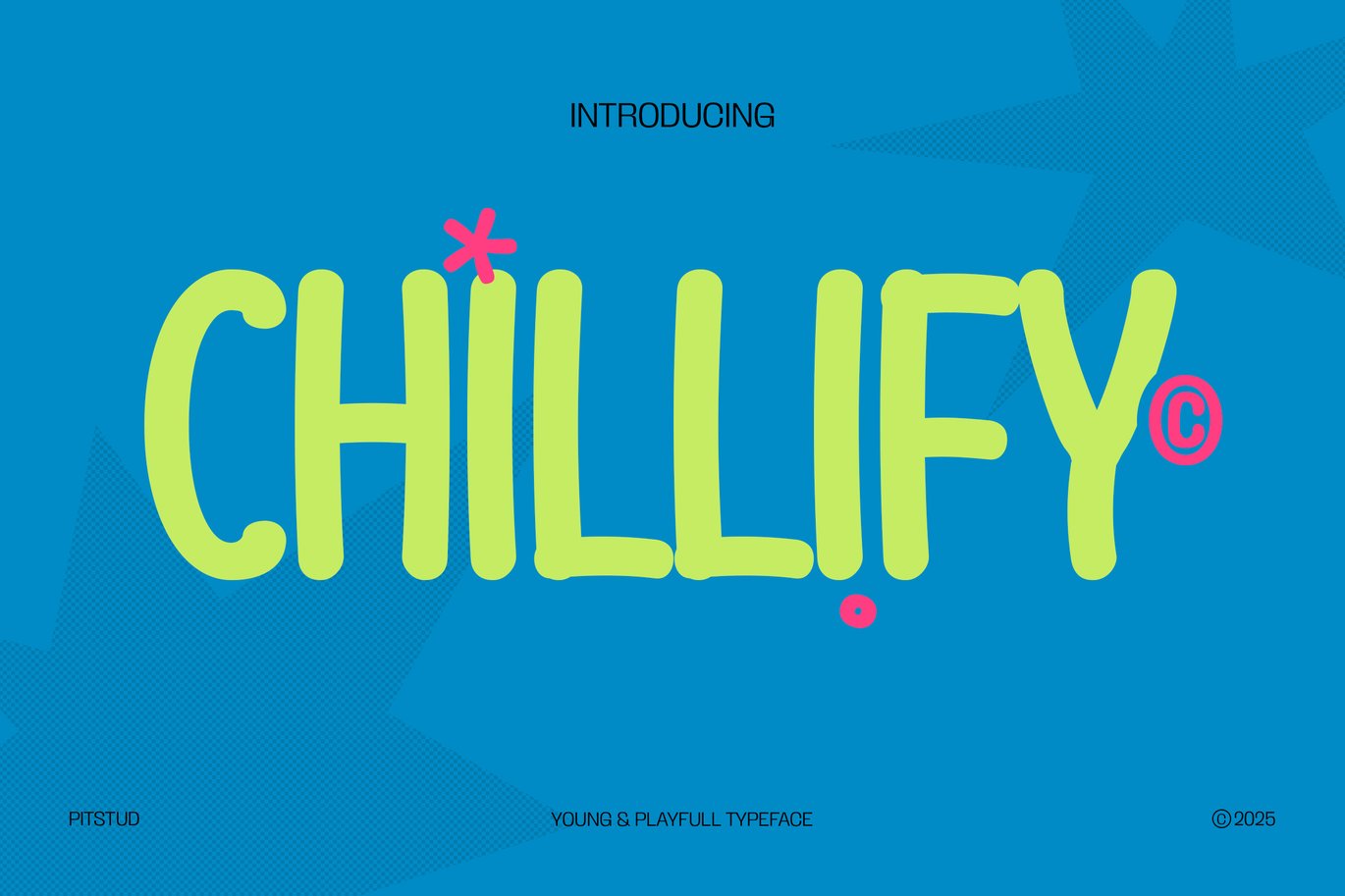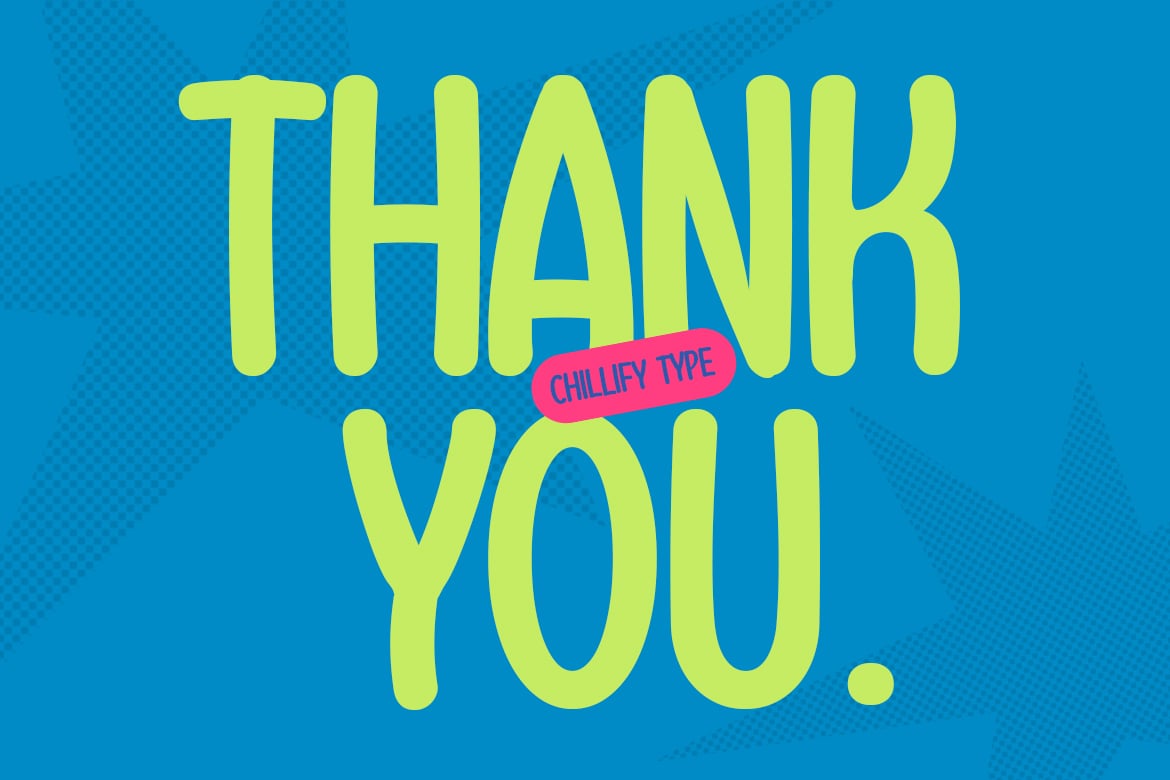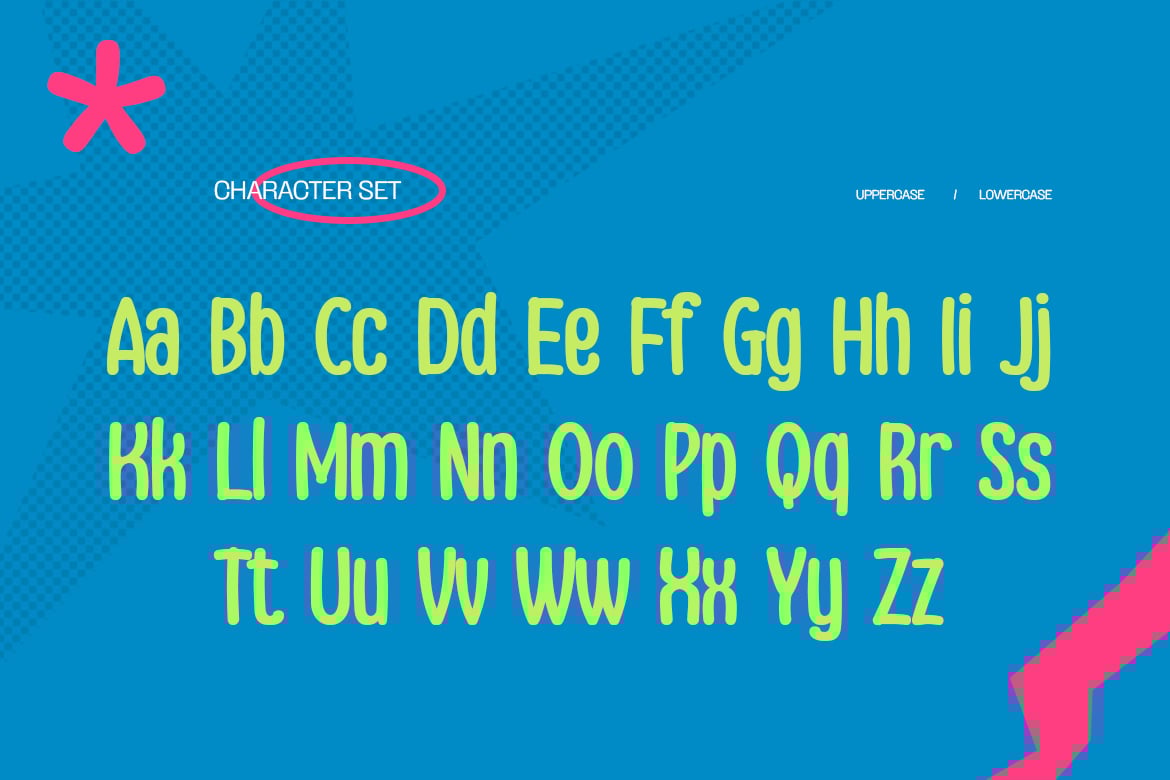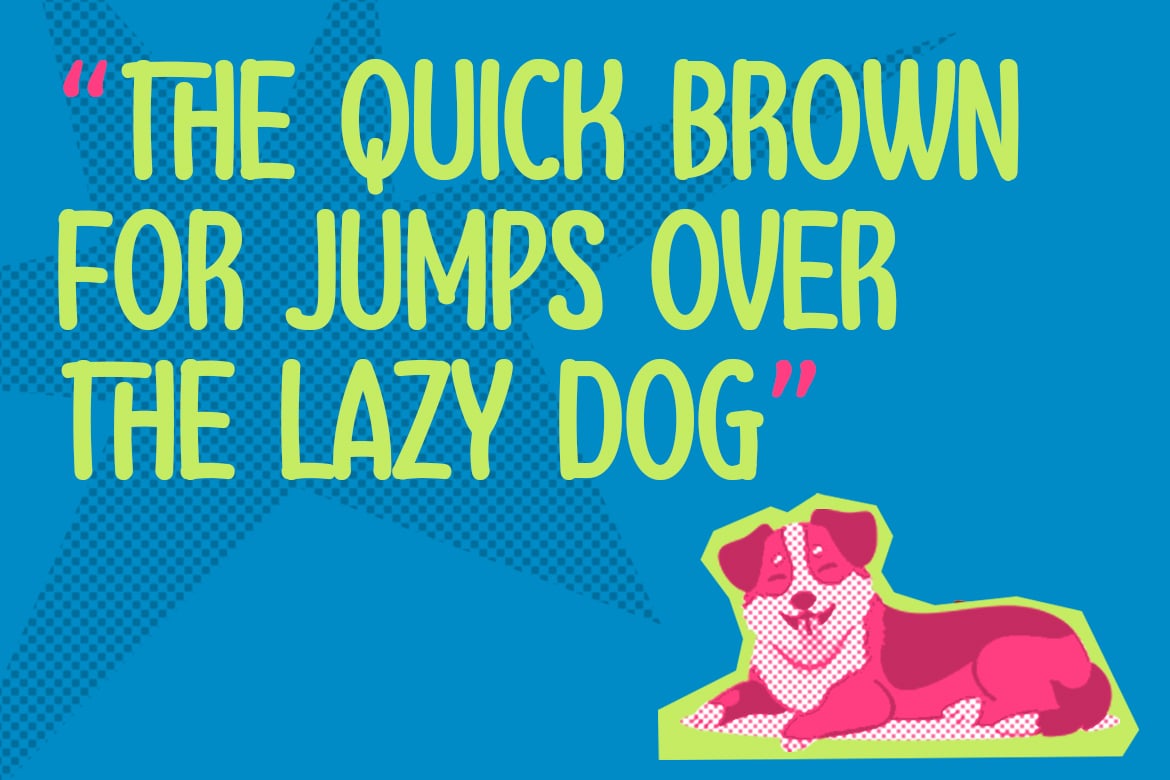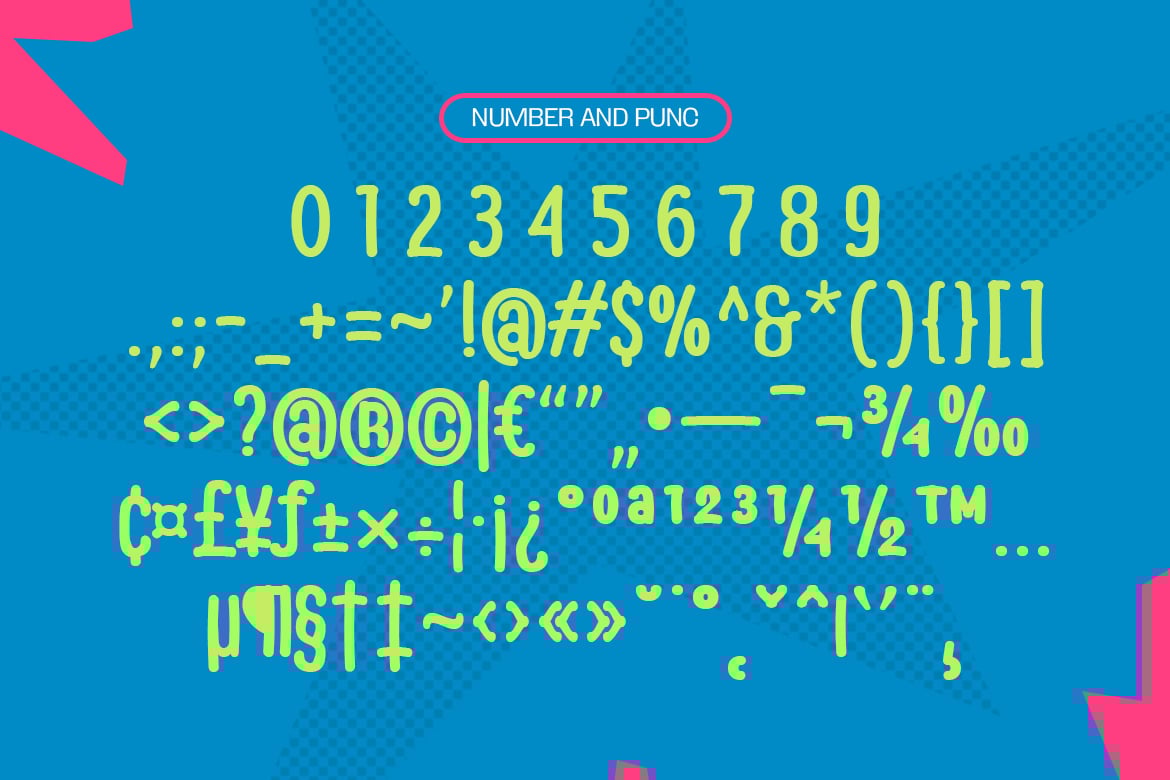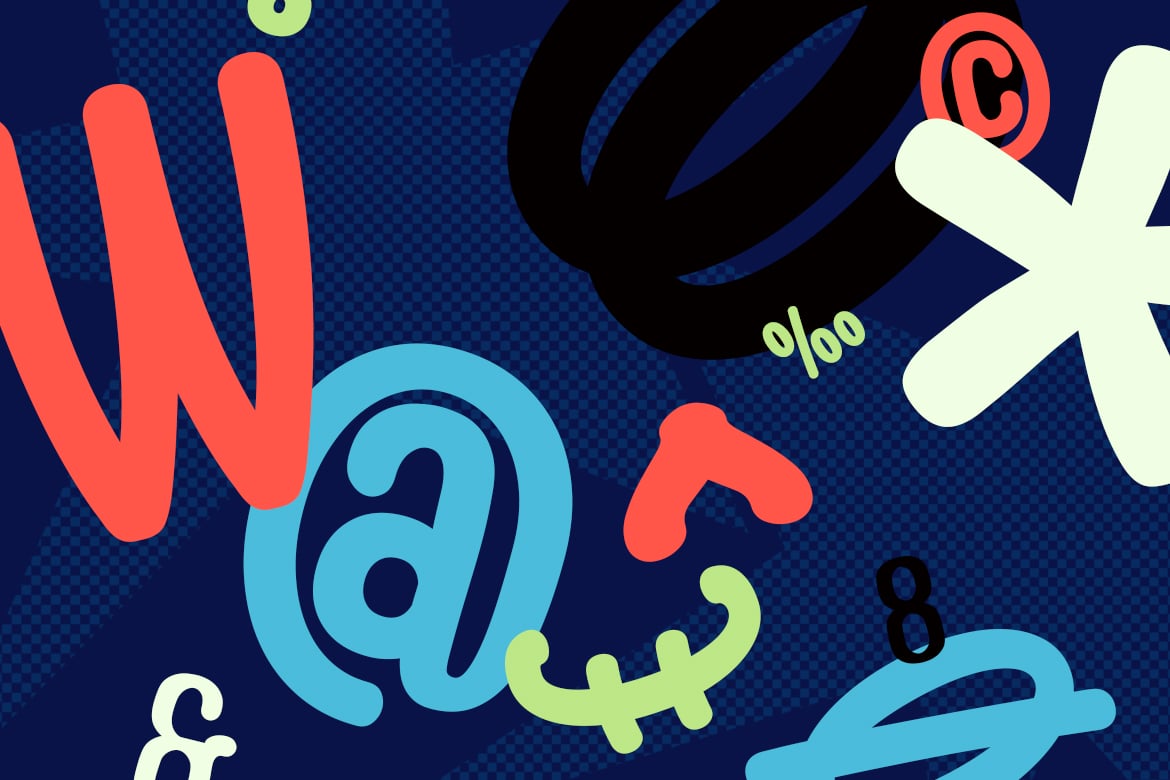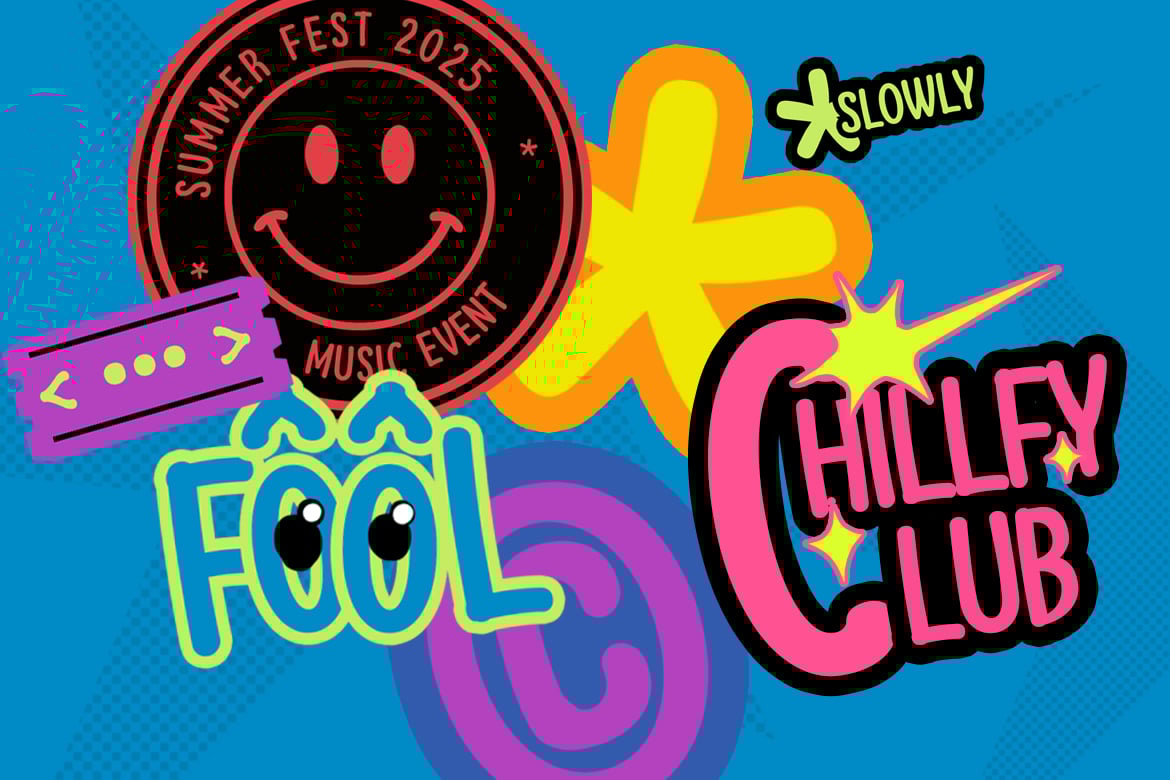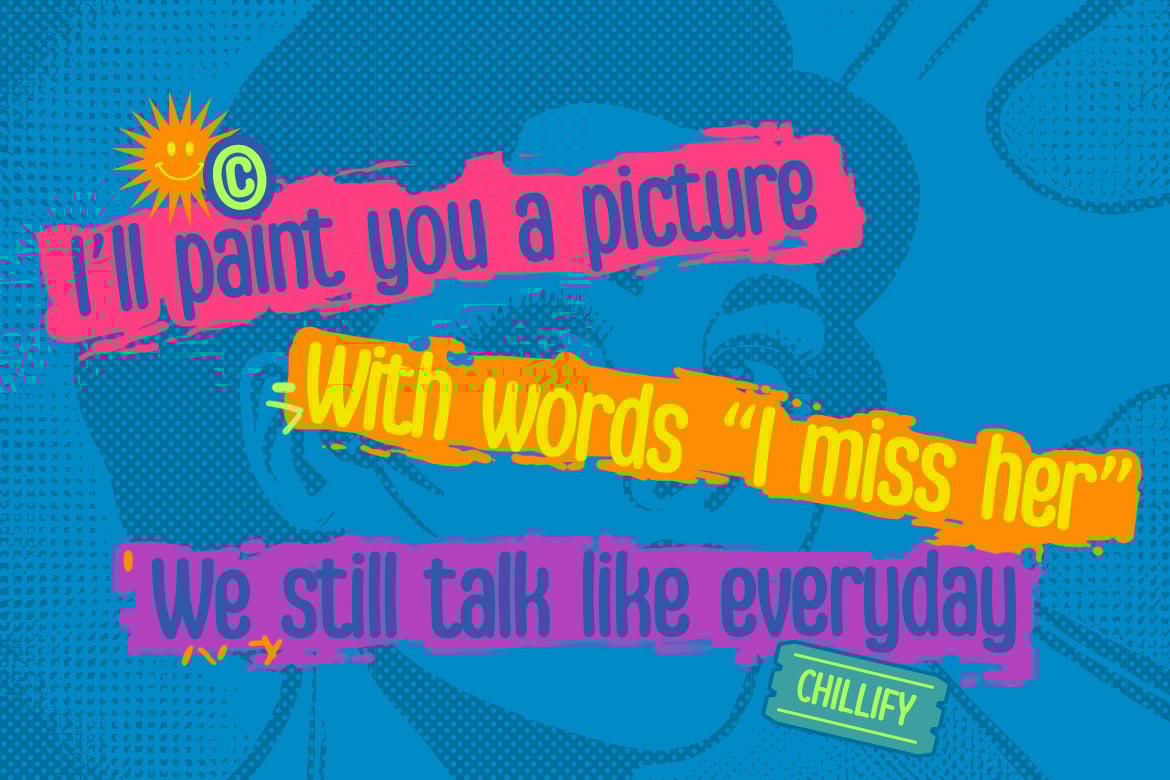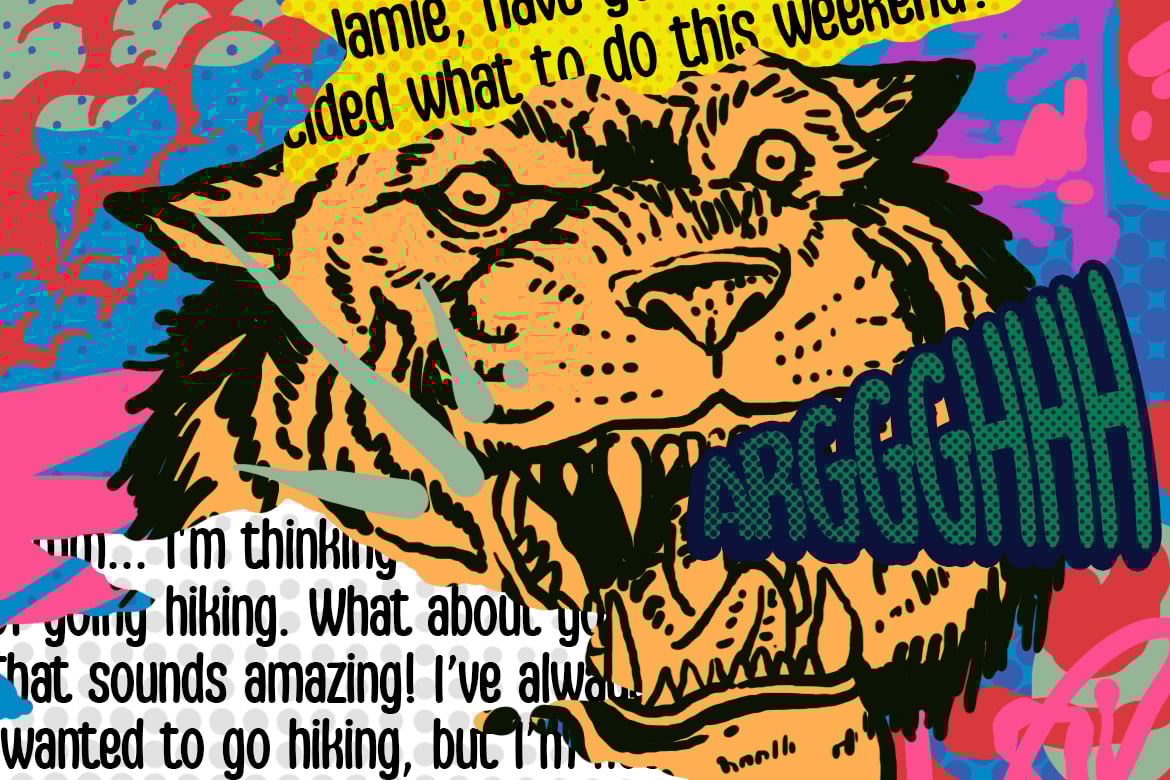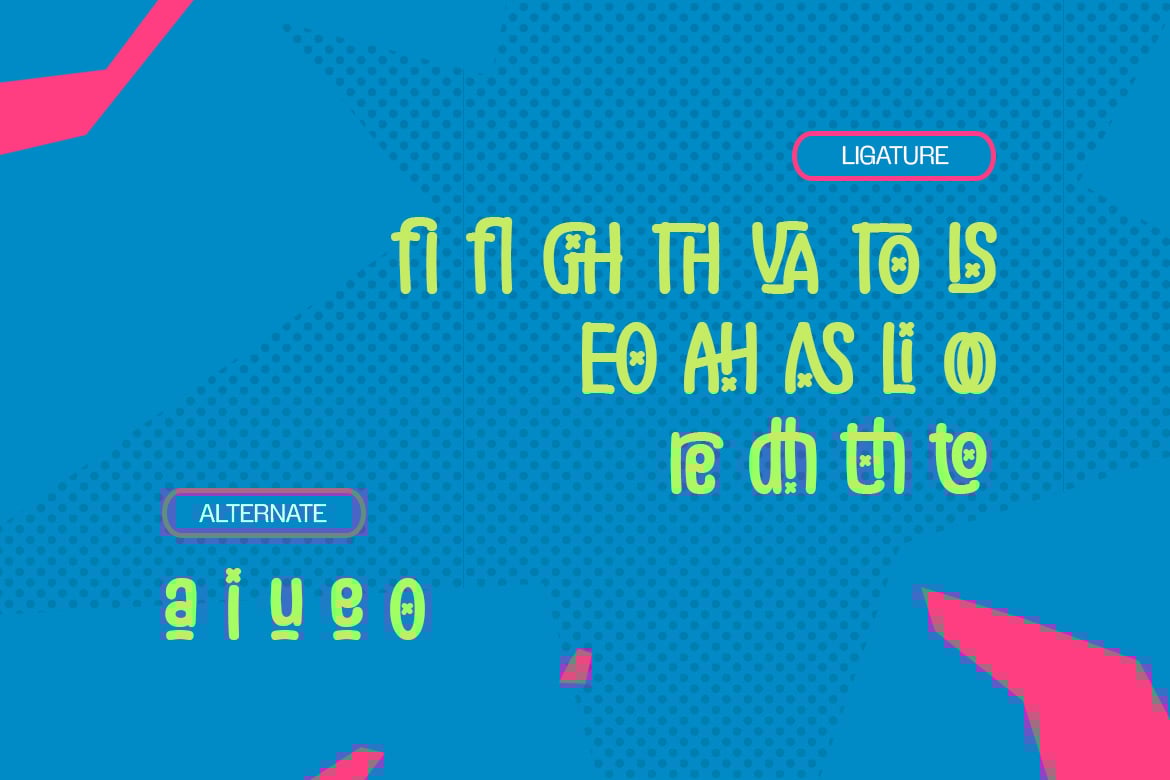
Chillify – Cute Cartoon Playful Font
is a premium Cute Cartoon Playful font designed to bring joyful, whimsical charm to your branding and design projects. Crafted with modern handwritten and display script influences, this font offers a sleek, stylish, and professional touch for logos, marketing materials, packaging, and digital applications.
Whether you’re working on a kids brand, Chillify will give your design a cheerful, fun edge. It’s ideal for use in playful logos, toy packaging, and more.
Font Features:
- Clear and Versatile Design: Offers easy readability with a modern style that stands out in both digital and print mediums.
- Complete Character Set: Uppercase and lowercase characters, numbers, punctuation, and symbols.
- OpenType Features: Access alternates, ligatures, and unique stylistic sets to customize your design.
- Multilingual Support: Includes support for multiple languages, including English, Spanish, French, German, Portuguese.
Chillify combines rounded letters, flowing curves to create a striking visual impact while maintaining clarity. Whether you are designing for children’s brands, playful event invitations, this font adapts to your needs and enhances the visual appeal of your design.
Perfect For:
- Kids Branding: Perfect for fun and energetic logos.
- Packaging for Toys: Add a cheerful touch to product packaging.
- Birthday Invitations: Create memorable invites with a playful feel.
- Creative Design Projects: Ideal for quirky, creative ventures.
- Marketing for Kids Products: Make a lasting impression with playful typography.